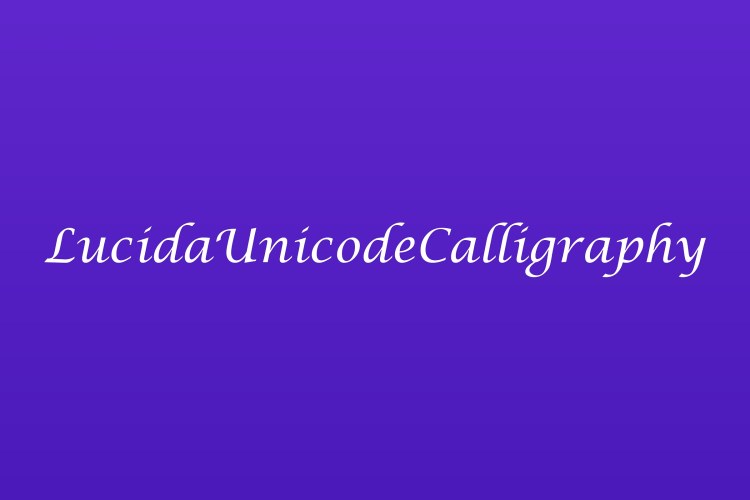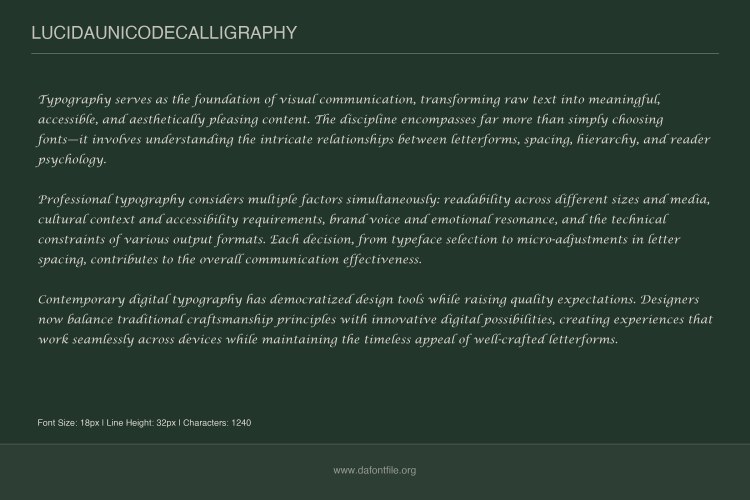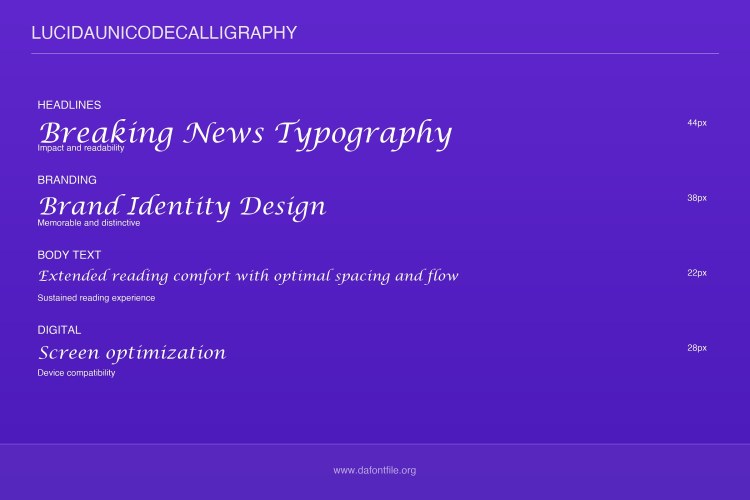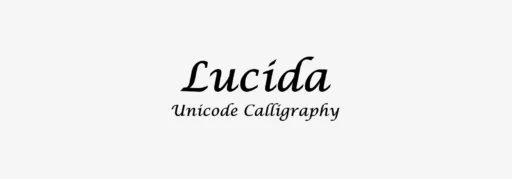
Lucida Unicode Calligraphy Font Family
Lucida Unicode Calligraphy is a stylish script font with a smooth, handwritten look. Its soft curves and flowing strokes give text a warm and elegant feel. You can use it for invitations, certificates, branding, or any project that needs a formal touch. Designers pick this font when they want simple elegance and clear readability.
Where Lucida Unicode Calligraphy Font Family works best
Lucida Unicode Calligraphy Font Family is built for size: event posters, hero headlines and billboard-style layouts.
High contrast display type like Lucida Unicode Calligraphy Font Family reads instantly in thumbnails and motion graphics.
What is Lucida Unicode Calligraphy Font Family good for?
Lucida Unicode Calligraphy Font Family is a Display Fonts typeface tagged Branding, Calligraphy, Display Fonts. It works well for headlines, logos, posters, social media graphics and branding projects that need a distinctive display fonts look.